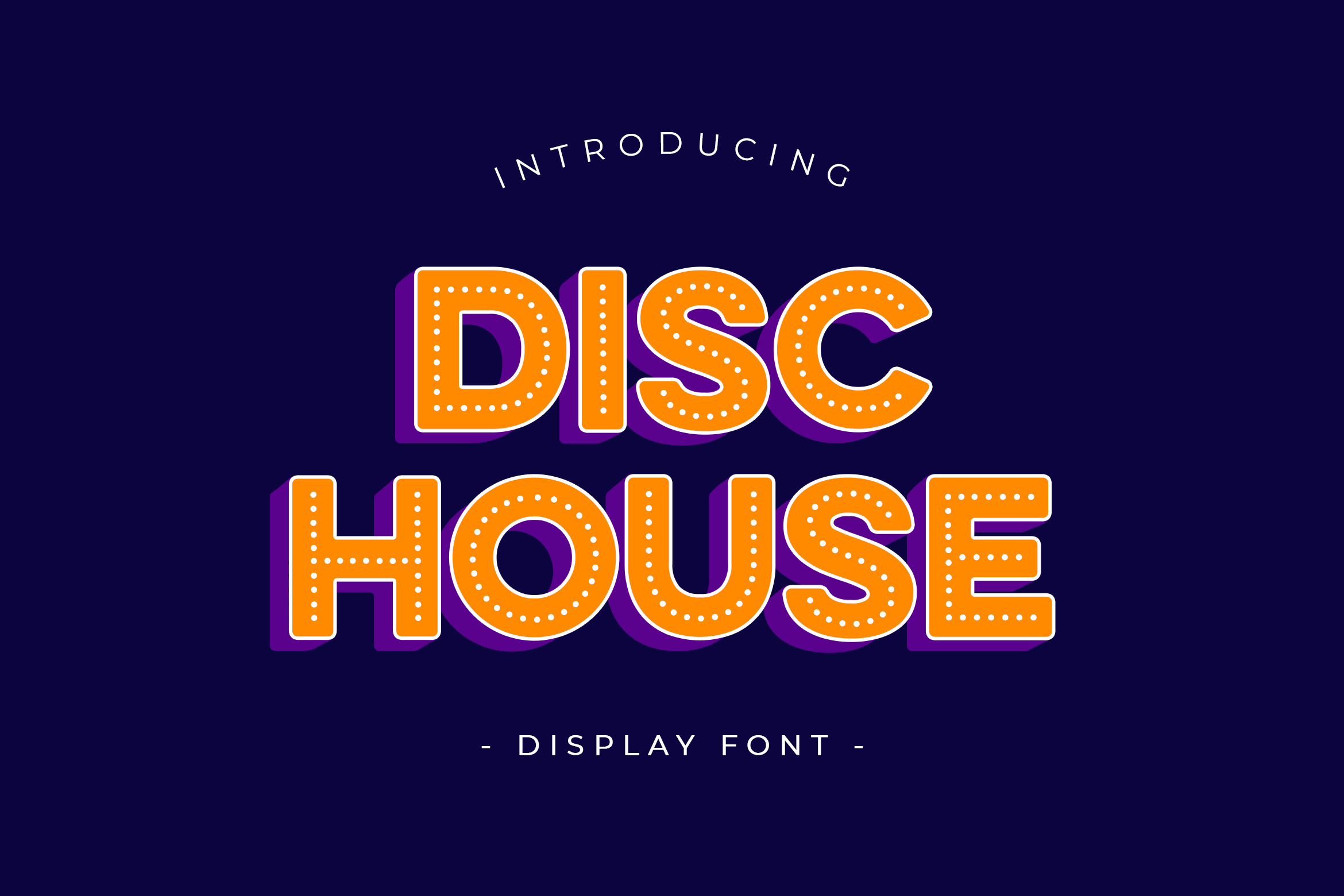
Disc House Display Font
Disc House is a premium Display Font endless design possibilities using bulb combinations of fonts. The typeface’s design is based on a simple grid, which creates the friendly, handcrafted look of facade signs. It is generously spaced for maximum impact of your message. Very suitable to use on your logotype project, poster, tshirt, branding, greeting cards, badges, and more, so what are you waiting for?